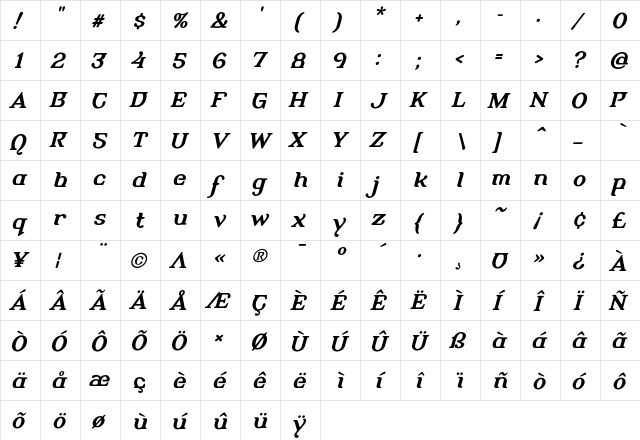
Alembic BoldItalicOne
Design Context for Alembic Typeface
Alembic is a composed and adaptable typeface that performs quietly and consistently across a wide range of design contexts. The slanted form adds forward momentum and visual energy. The heavy weight commands attention and anchors typographic hierarchies.
Pro Tip: Use Alembic for emphasis, pull quotes, and subheadings where its slanted energy can add rhythm to the layout.